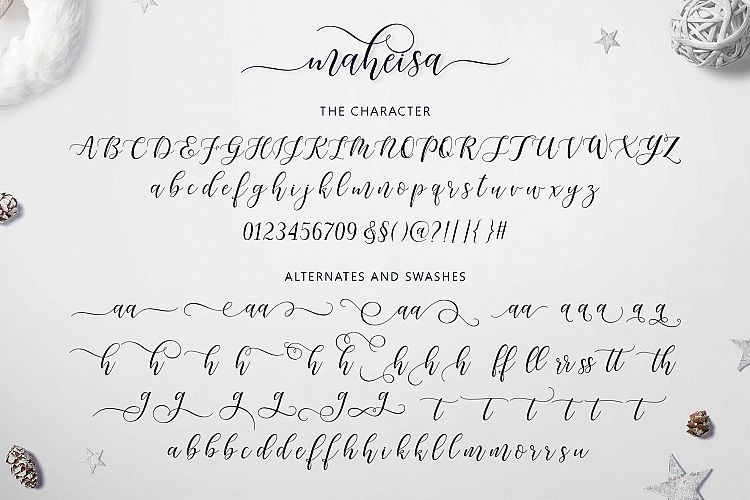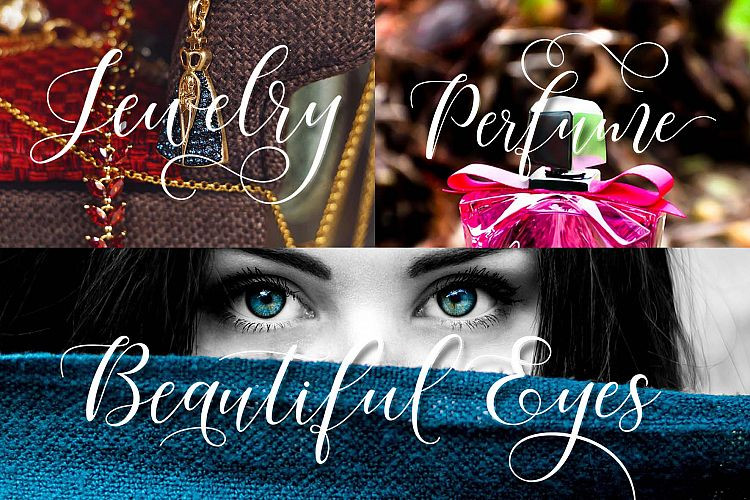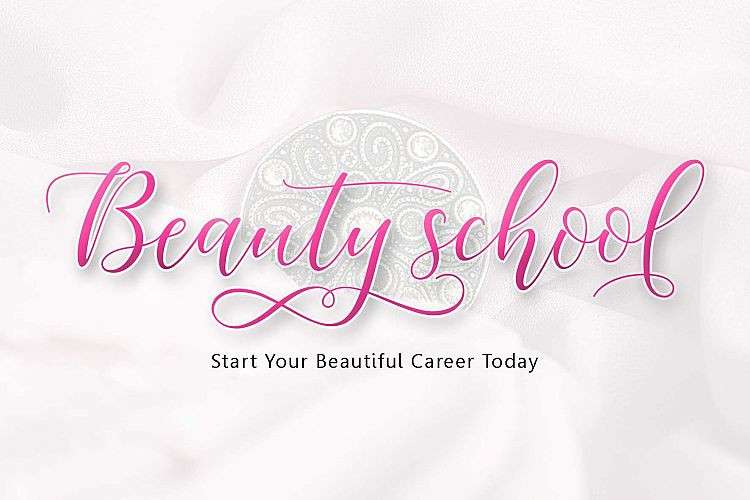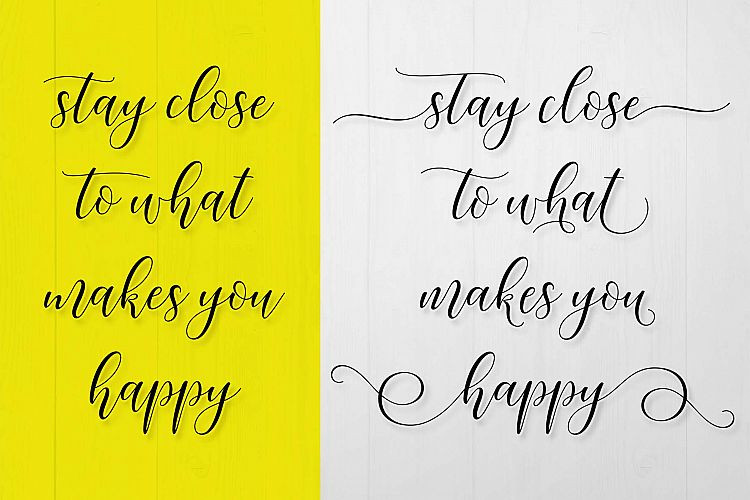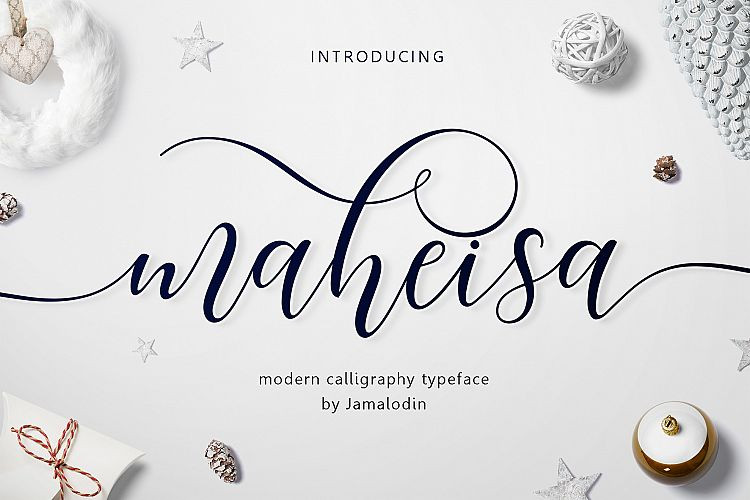
Maheisa Script Font
This is a modern calligraphy typeface, it’s has a romantic and modern calligraphy, ready to give your design a fresh and fabulous Style. Introducing Maheisa Font. It’s modern script font, every single letters has been carefully crafted to make your text looks beautiful. With modern script style this font will perfect for many different project, example: invitations, greeting cards, posters, name card, quotes, blog header, branding, logo, fashion, apparel, letter, stationeryand more !